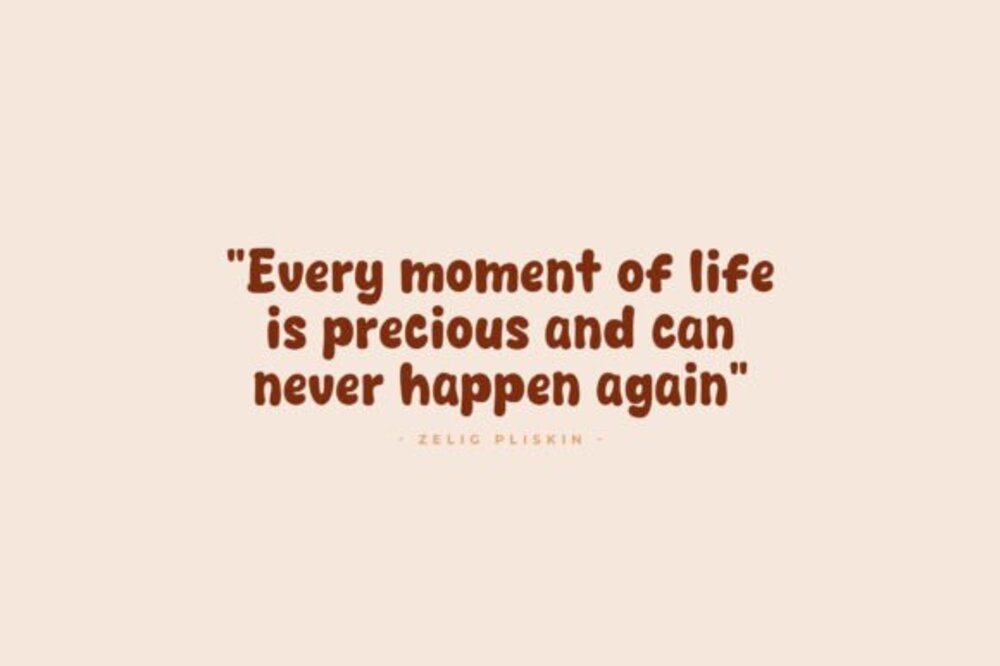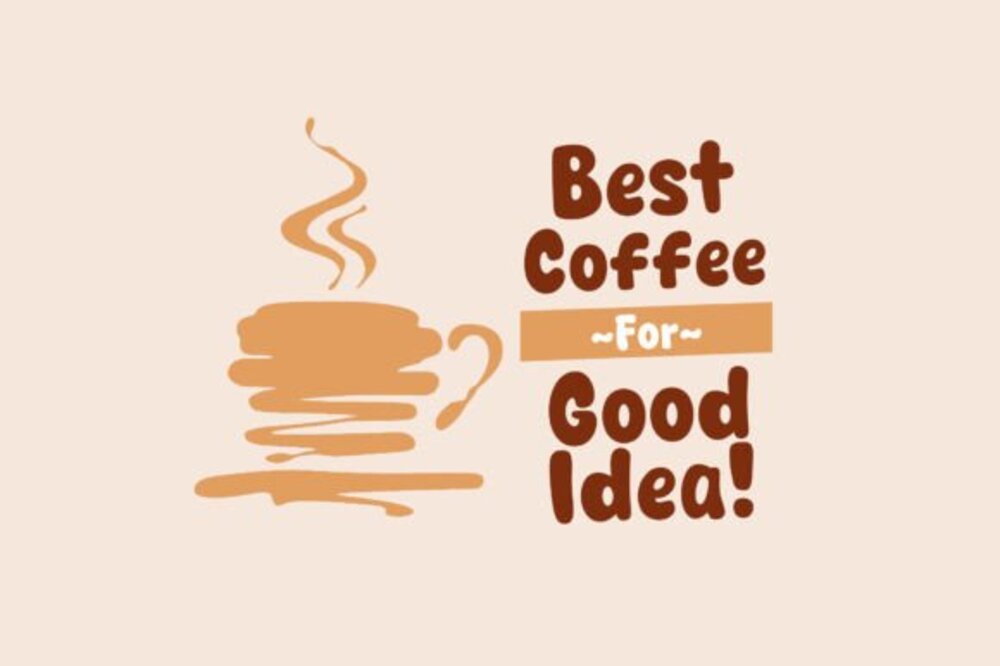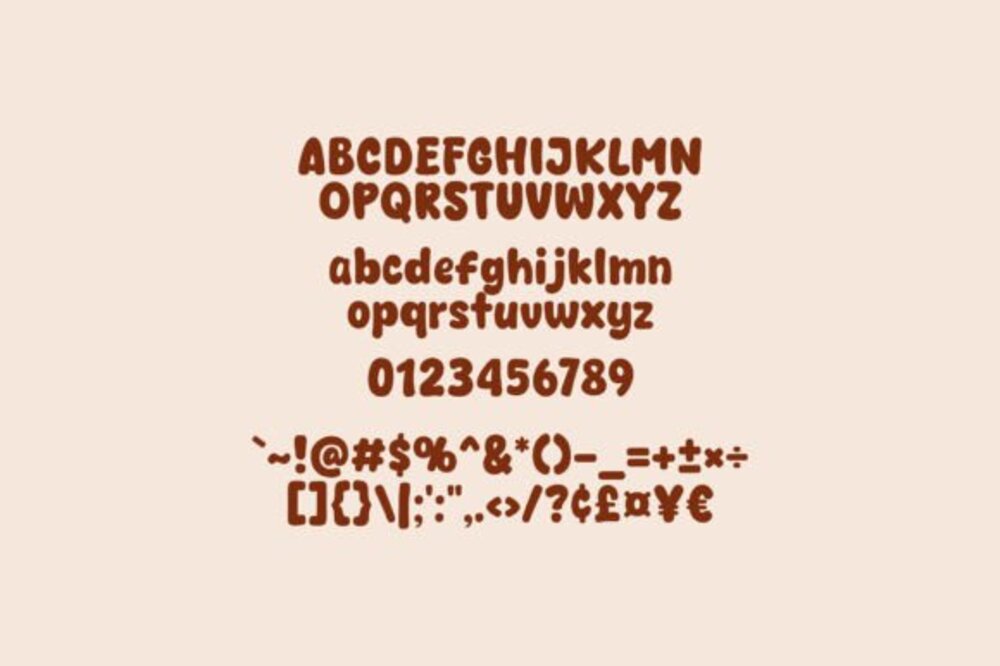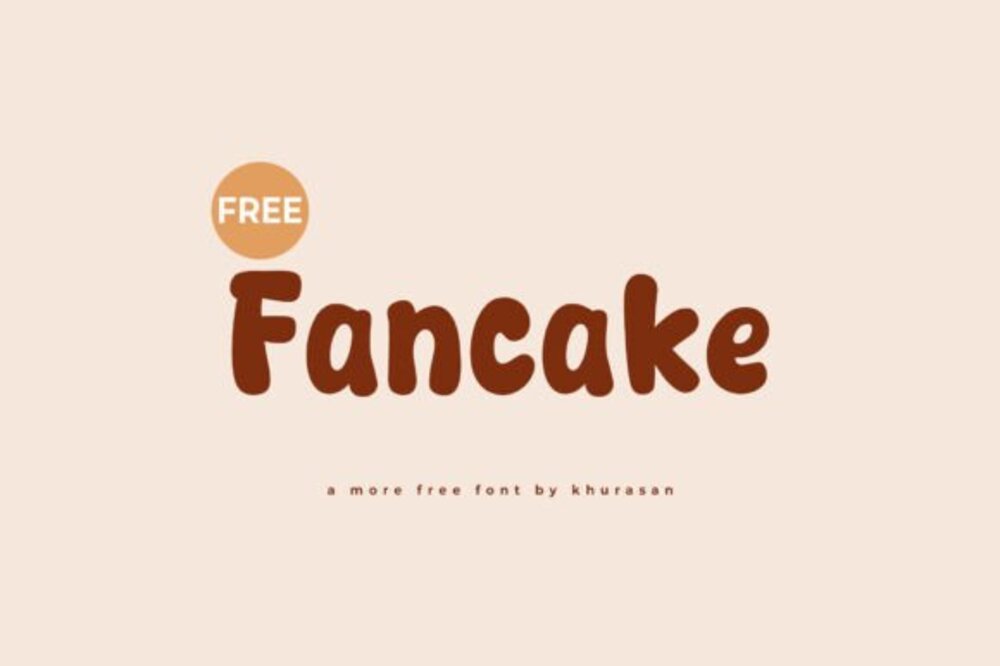
Fancake Font
Fancake is a delightful and whimsical display font with a playful charm. Its rounded, bubbly letters exude friendliness and creativity, making it perfect for children’s projects, party invitations, or branding that needs a fun touch. Fancake’s lively and lighthearted style adds joy and personality to any design, creating a warm and approachable feel that appeals to all ages.